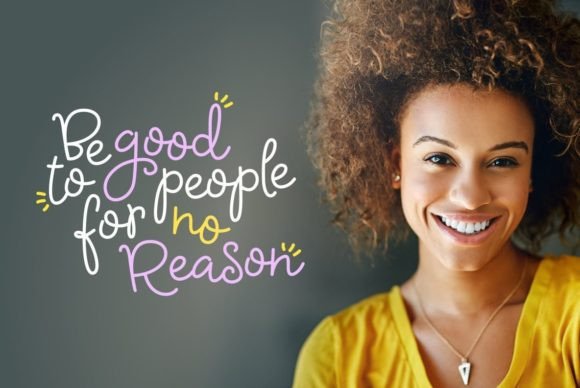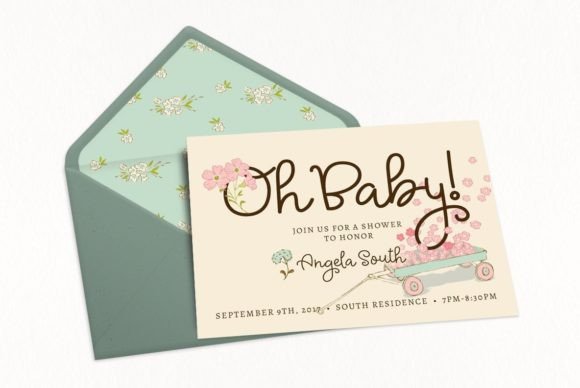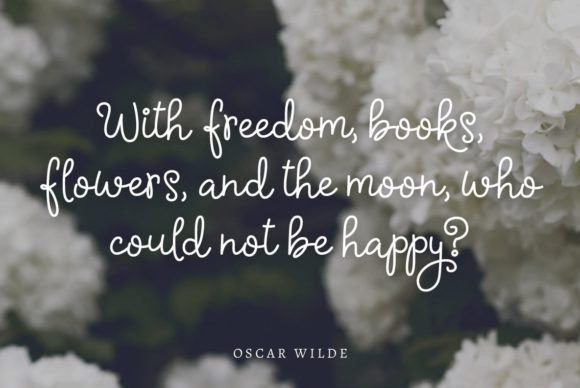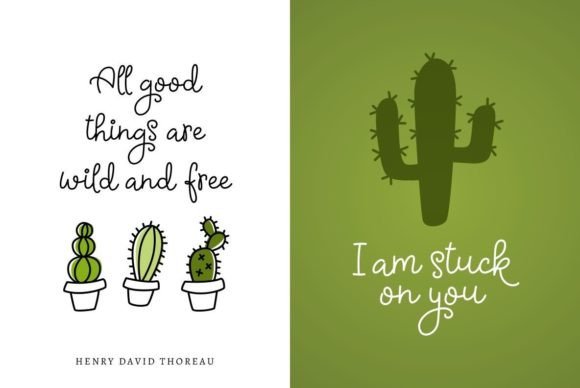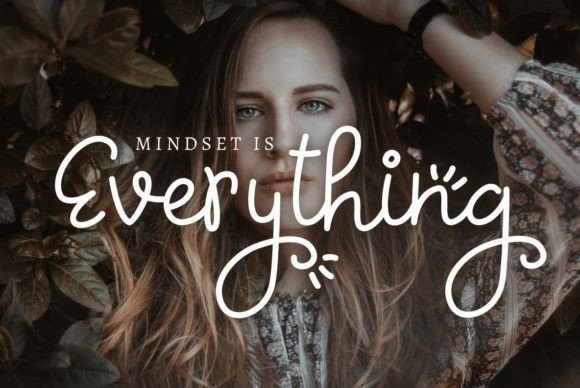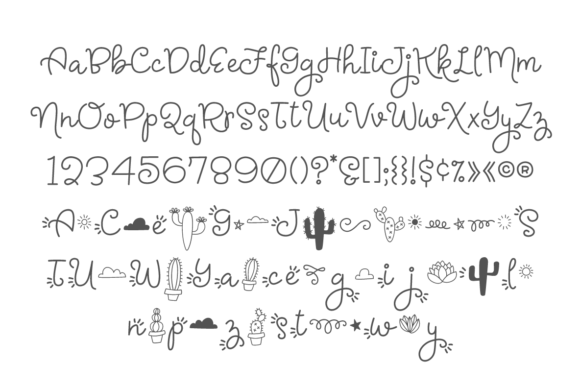
Introduction to Mojave Font
As a designer, have you ever found yourself rummaging through your font collection, searching for the perfect script to add a touch of personality to your next project? Maybe it was a birthday card, a wedding invitation, or a social media graphic – whatever it was, you wanted to make it stand out. And then, you stumbled upon it: a beautiful, hand-drawn script font that made your design come alive.
Meet the Mojave Font, a simple yet elegant script font that’s perfect for adding a touch of playfulness to your creative projects. With its high-quality design and transparent background, this font is a valuable resource for designers who want to take their projects to the next level.
Key Features of Mojave Font
- High-quality design resource with a transparent background, ideal for creative projects that require a clean and modern look.
- Features a unique, elegant design that is perfect for use in branding, logos, and other visual identity projects.
- Includes a range of weights and styles, from light to bold, allowing designers to customize the font to suit their needs.
- Designed at a high resolution of 300 DPI, ensuring that the font looks crisp and clear on both digital and print materials.
- Perfect for use in a variety of creative projects, including brochures, business cards, and website design.
Honest Review: Mojave Font
I recently had the chance to work with the Mojave Font in a creative project, and I have to say, it was a great experience. This font is definitely a high-quality design resource that can elevate your work to the next level. One of the things that stood out to me was the transparent background option, which allowed me to customize the look and feel of my design without any restrictions.
Here are some of the things that work well with the Mojave Font: ✨
- High-quality design: The font is crisp and clear, making it perfect for any project.
- Customizable: The transparent background option allows for endless possibilities.
That being said, there are a few limitations to be aware of: ⚠️
- Limited font sizes: While the font is great for body text, it’s not ideal for headlines or titles.
- Not ideal for complex layouts: The font can get a bit messy when used in complex layouts or with multiple elements.
Overall, I’m impressed with the Mojave Font. It’s a solid design resource that can add a lot of value to your work. While it may have a few limitations, I think it’s definitely worth checking out, especially if you’re looking for a high-quality font with a transparent background option.
The Mojave Font is a high-quality design resource that can be used in a variety of creative projects. Its transparent background makes it ideal for use in overlays, icons, and other design elements.
Getting the Most Out of Mojave Font
For the best results, use Mojave Font on a transparent background and combine it with other design elements to create a high-quality design. Experiment with different font sizes, colors, and arrangements to find the look that works best for your project.
Common Use Cases for Mojave Font
The Mojave Font is commonly used in design projects that require a modern and sleek look, such as branding materials, website headers, and social media graphics.